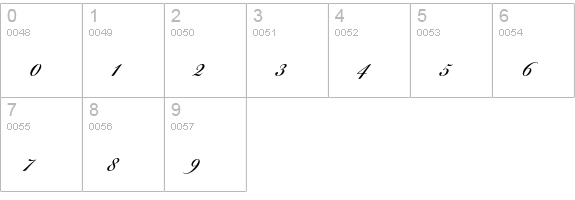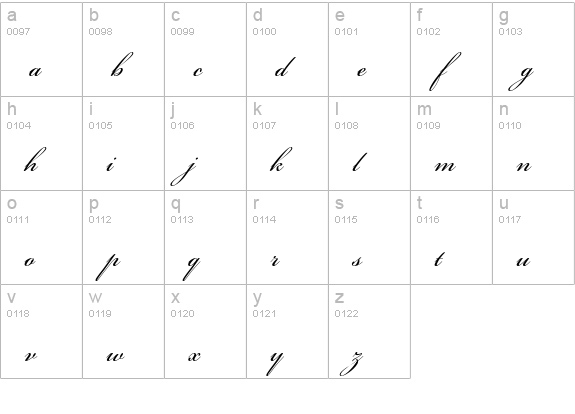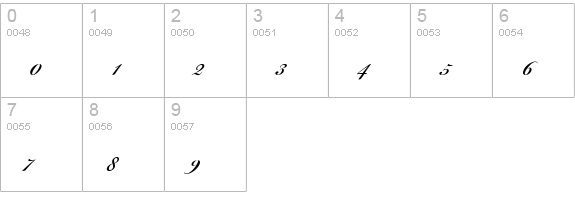
Bickham Script Pro is a stunning and elegant font that exudes sophistication and charm. With its intricate loops and delicate flourishes, this script font is perfect for adding a touch of luxury to any design project. Whether you're creating wedding invitations, branding materials, or elegant signage, Bickham Script Pro will elevate your work to new heights. The flowing script of Bickham Script Pro is both timeless and versatile, making it suitable for a wide range of applications. Its classic yet modern aesthetic ensures that it stands out while maintaining a sense of refinement and grace. And the best part? Bickham Script Pro is available for free download at FontsMarket.com. So go ahead and add this exquisite font to your collection today to bring a touch of sophistication to your designs.